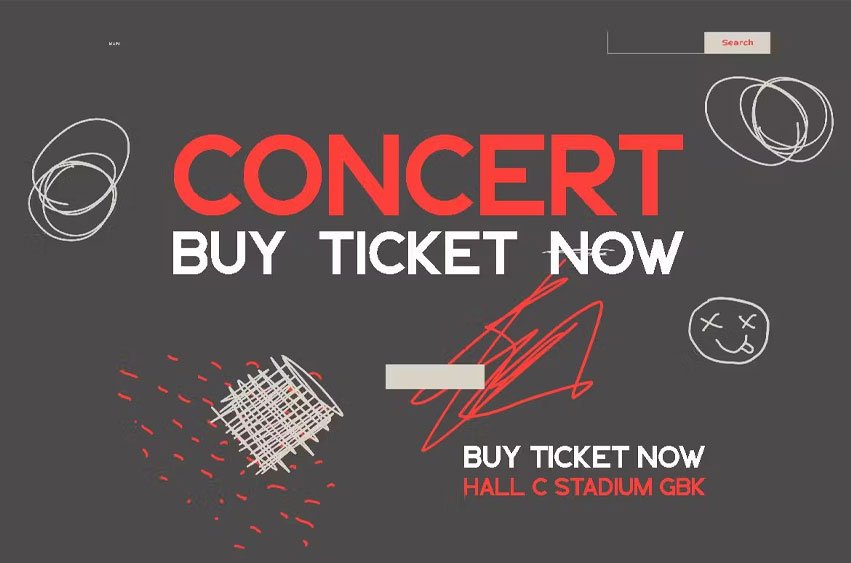
Sreethype Font is a collection of Serif is perfect for personal branding. It was made to be used for your branding. But, this works well for many applications. Everything from personal branding, logos, name tag, handwritten quotes, product packaging, merchandise, social media & greeting cards. photography signature, advertising could benefit from this collection of these bold signature fonts.
Sreethype Font Preview